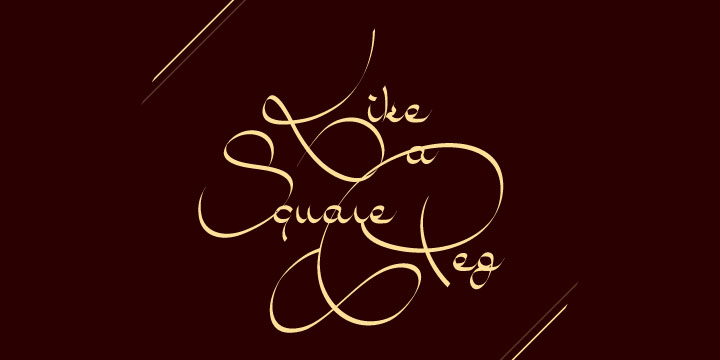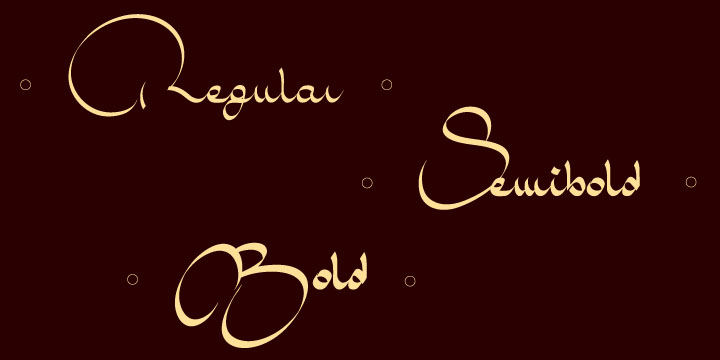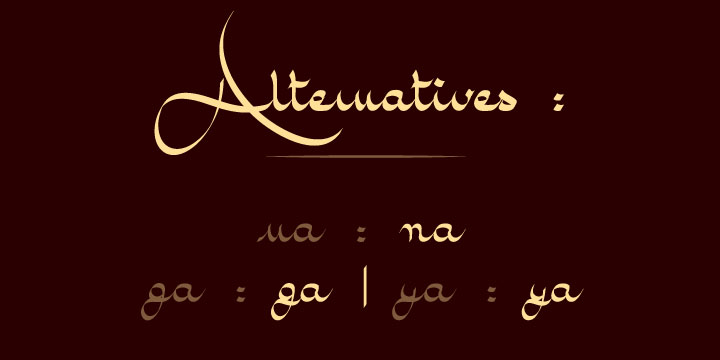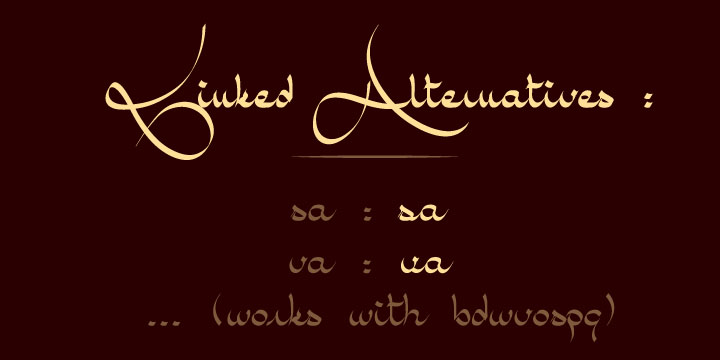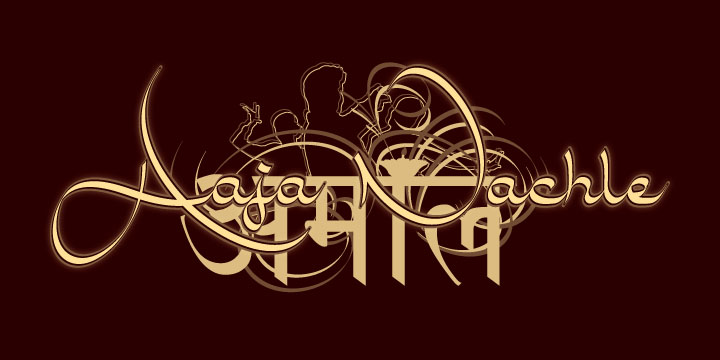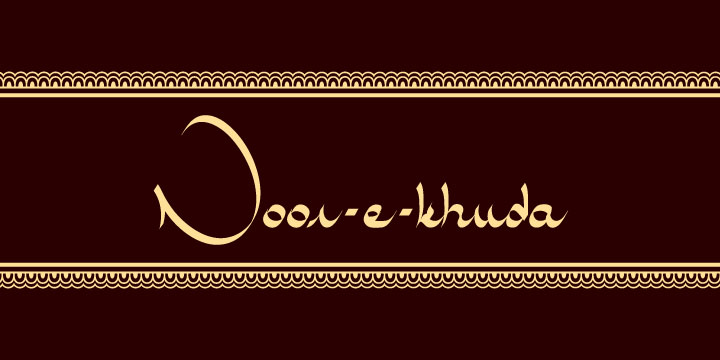
Amal Font Family
The Amal font gets its inspiration from Arabic calligraphy. The font carries the magic spirit of Middle-East old tales, by borrowing the charm of Arabic writing to design its letters.
This elegant association of large calligraphed capital letters with smaller lower-case letters, makes this refreshing font best fit for short writings, ornamental ones, or long lower-case ones.
Amal
Amal SemiBold
Amal Bold